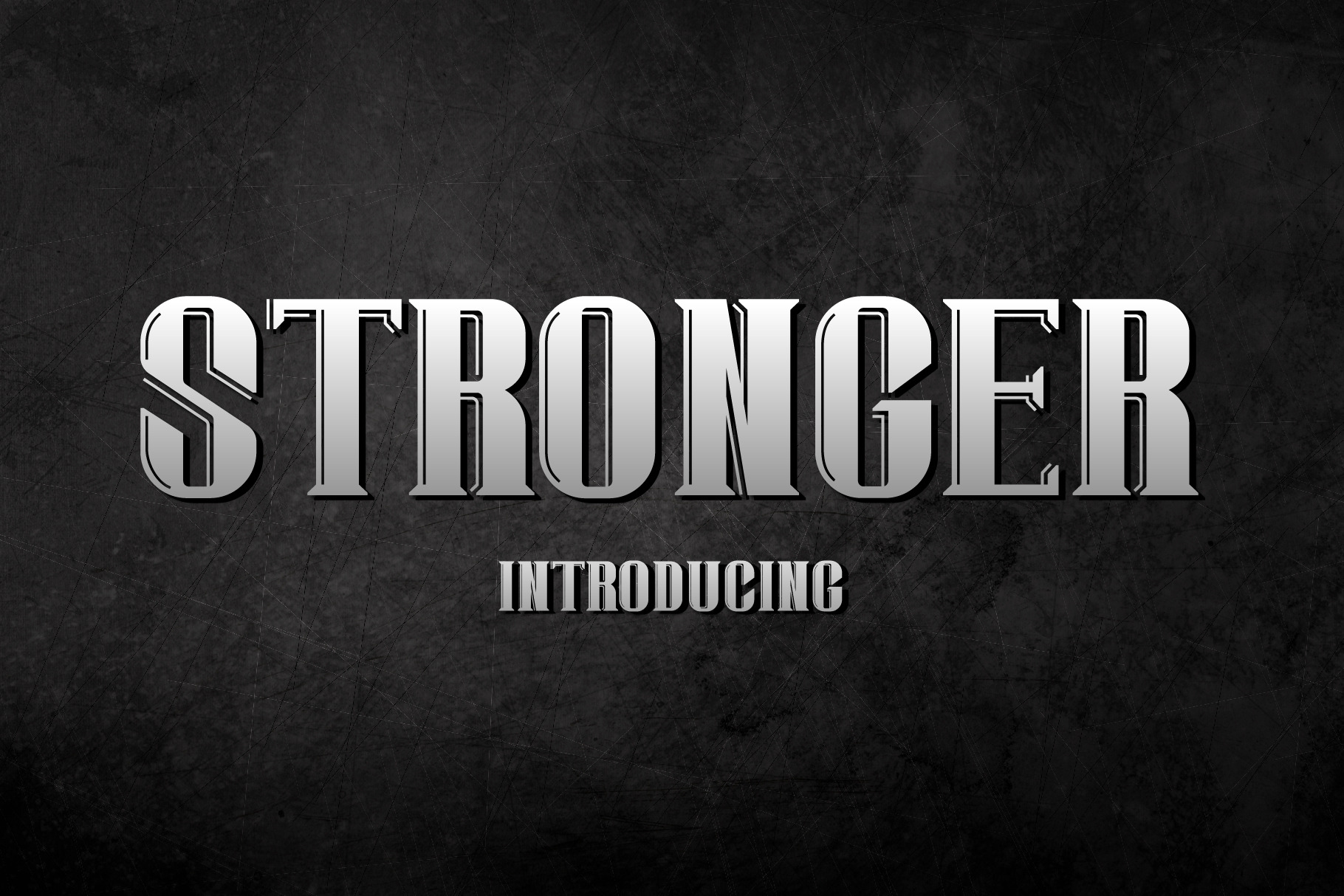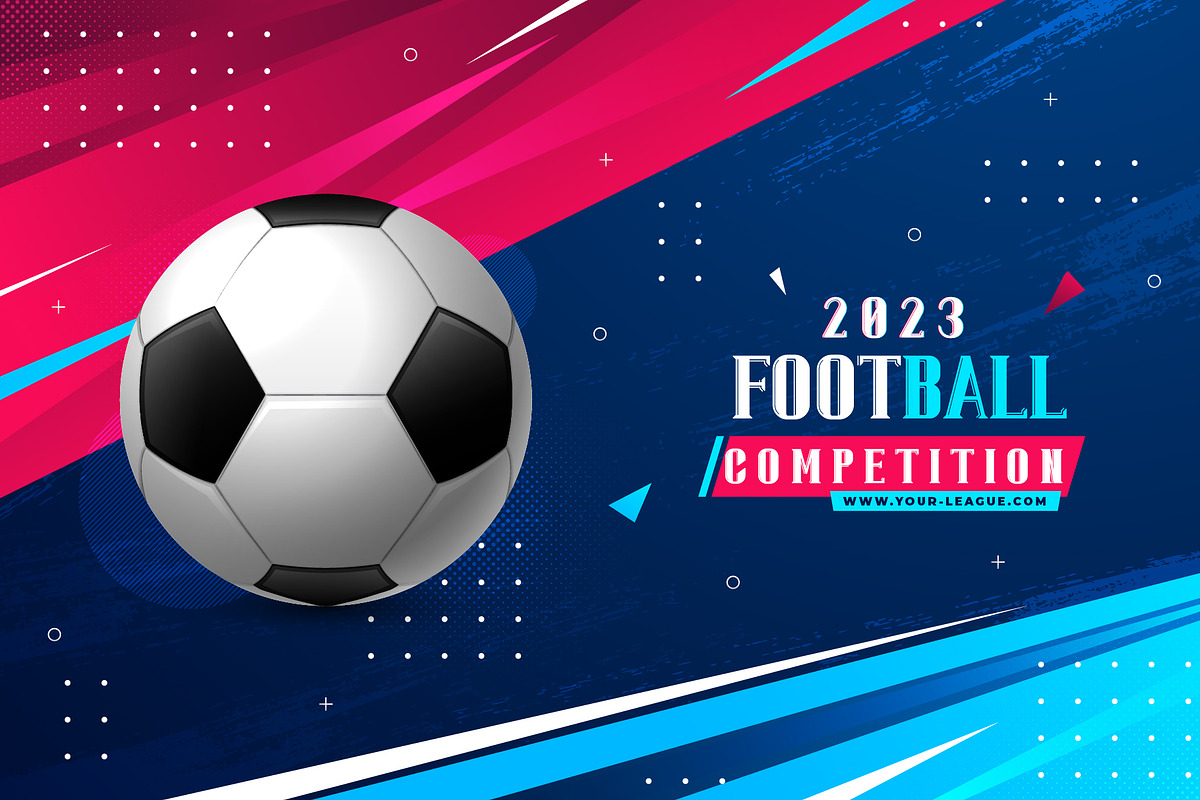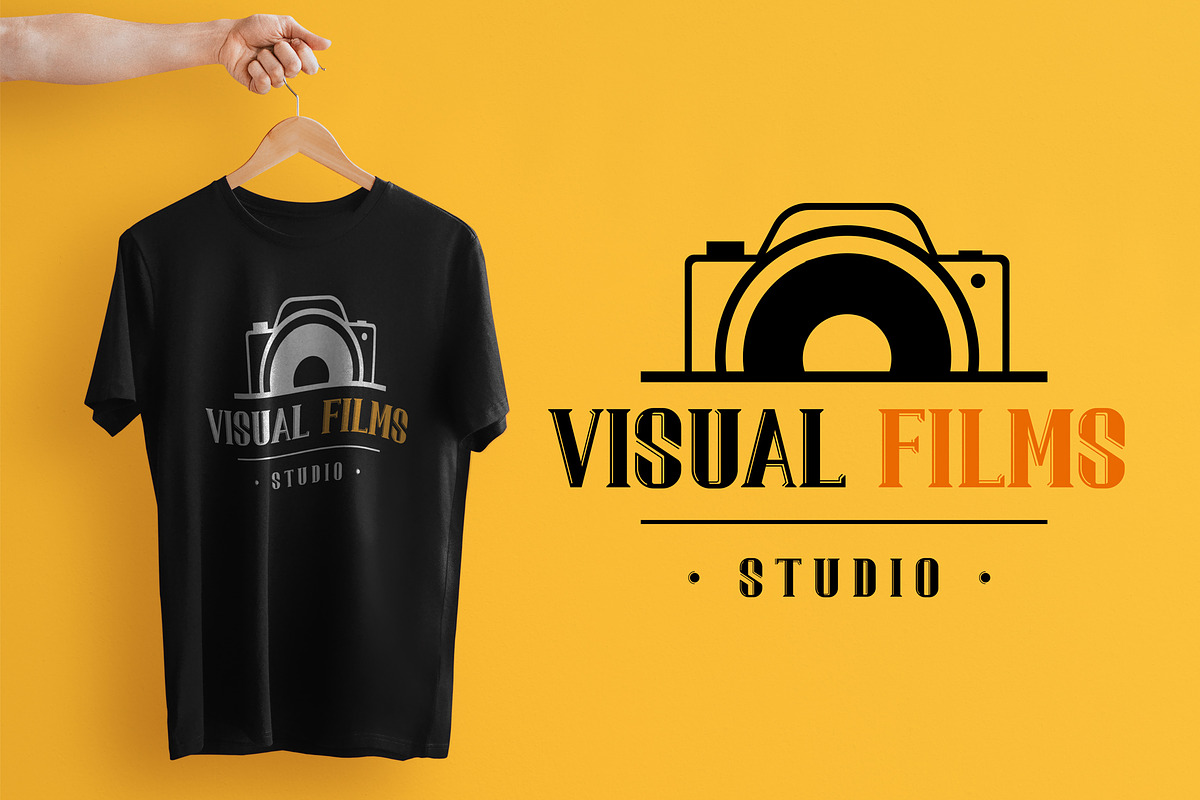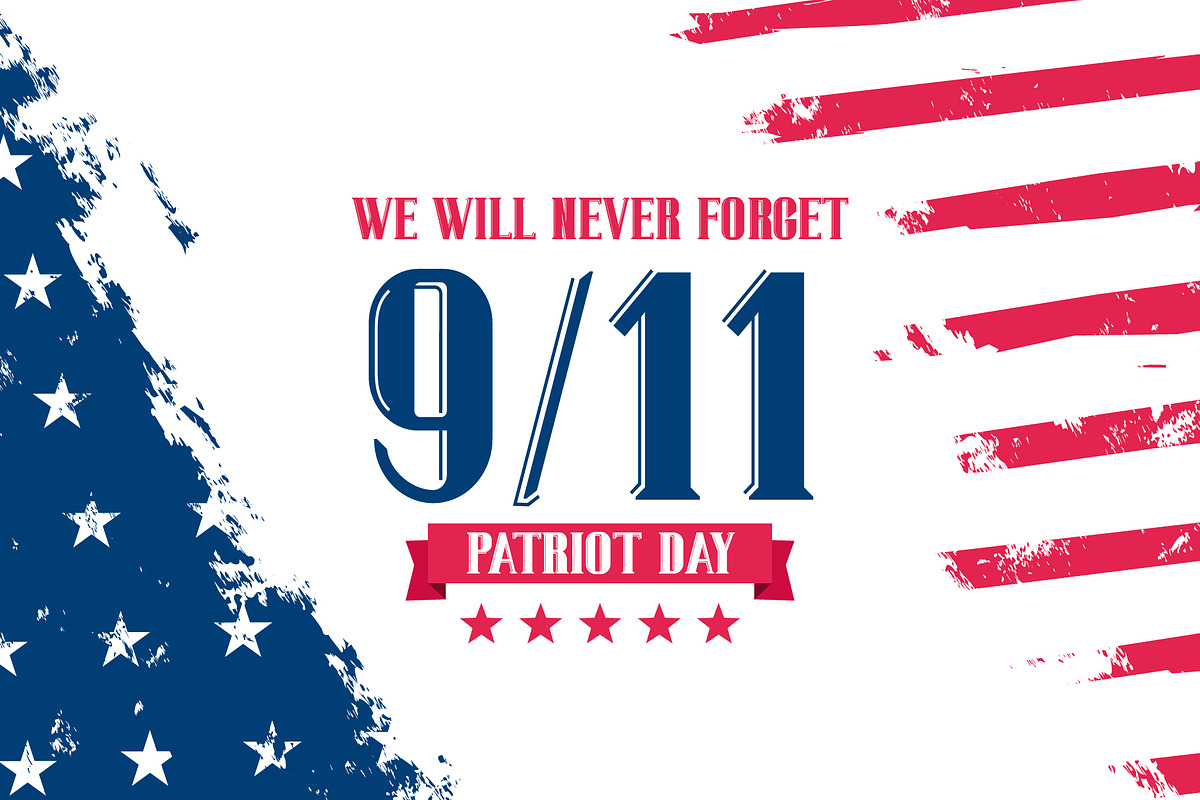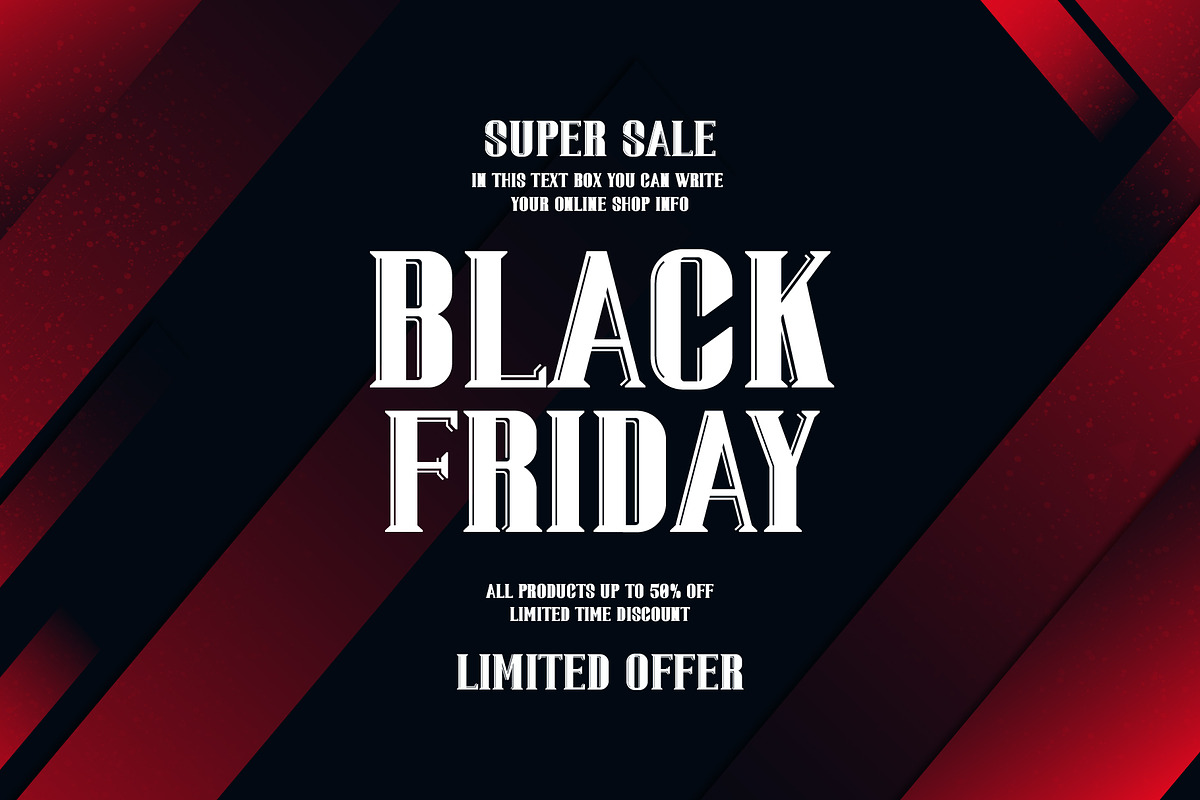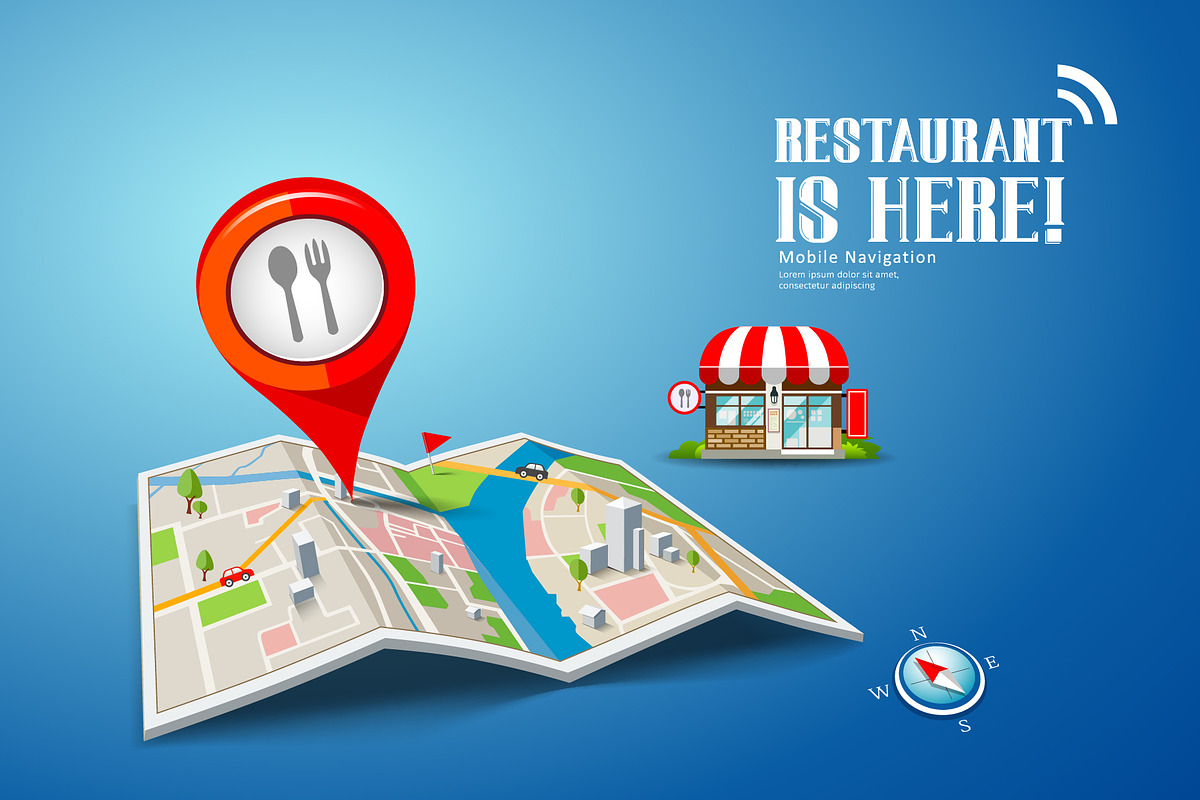
Stronger font
Stronger font is a strong and incredibly cool Slab Serif font. For publications, logos, business cards, or printed on t-shirts, this font will look outstanding on everything, no matter the topic. This font will be an incredible asset to your fonts’ library, as it has the potential to elevate any creation.